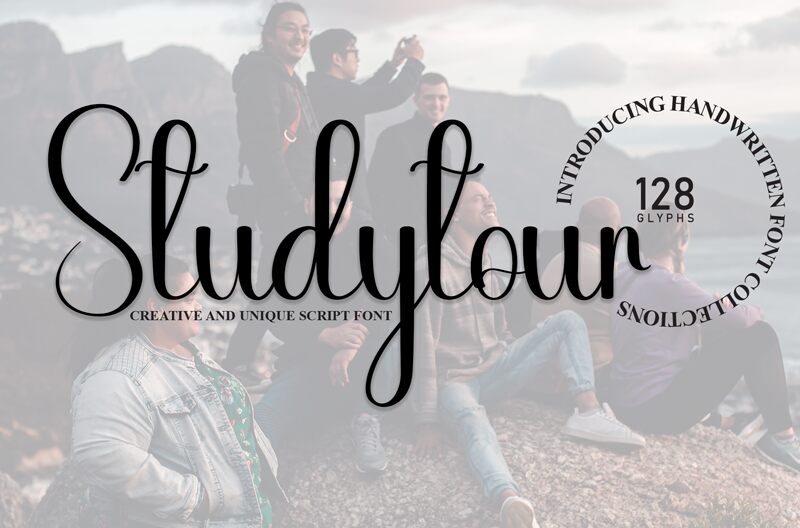
Studytour
Studytour is a captivating handwritten font that exudes a sense of charm and authenticity. Crafted by designer Andi Moz, this condensed typeface boasts a fluid, organic aesthetic that sets it apart from traditional script fonts. The interplay of thick and thin strokes, coupled with the playful, slightly irregular letterforms, lend Studytour a distinct personality that is both elegant and approachable.
This versatile font shines in a variety of design applications, from editorial layouts and product packaging to wedding invitations and social media graphics. Its distinctive character makes it a compelling choice for projects that aim to convey a personal, handcrafted touch, while its compact width allows for seamless integration into compact design spaces.